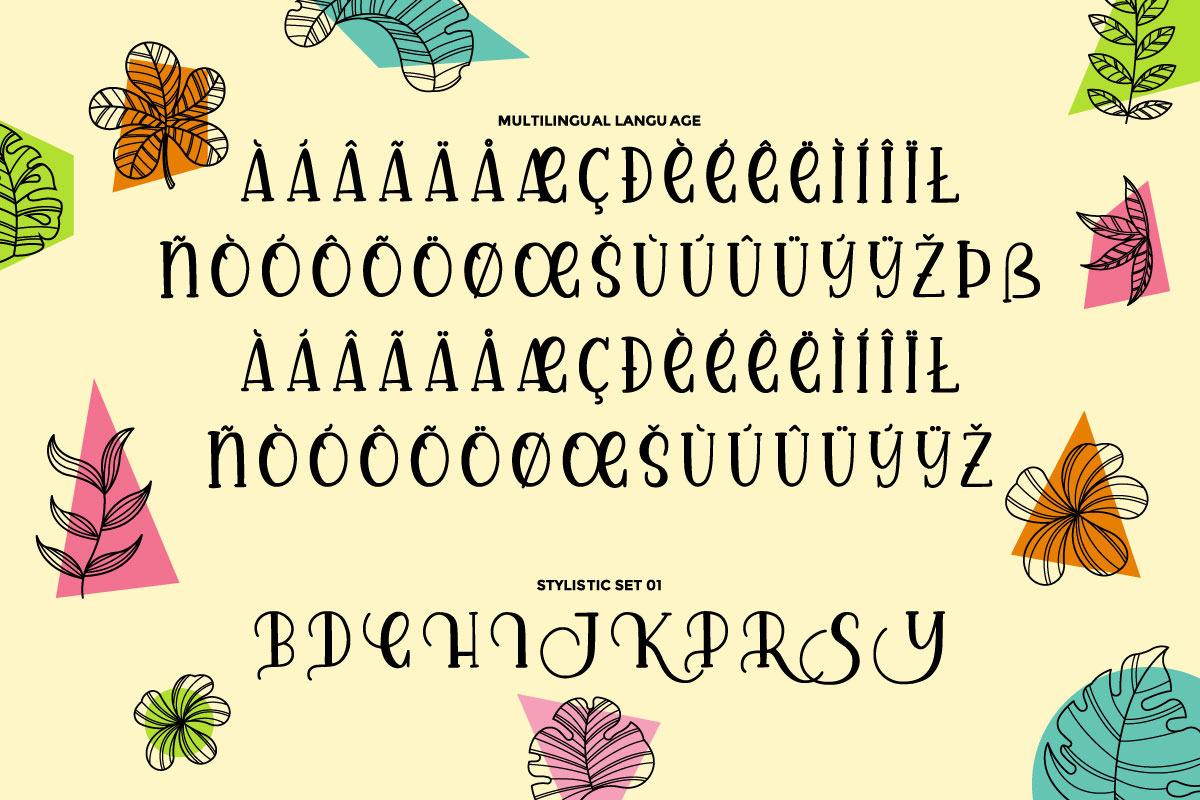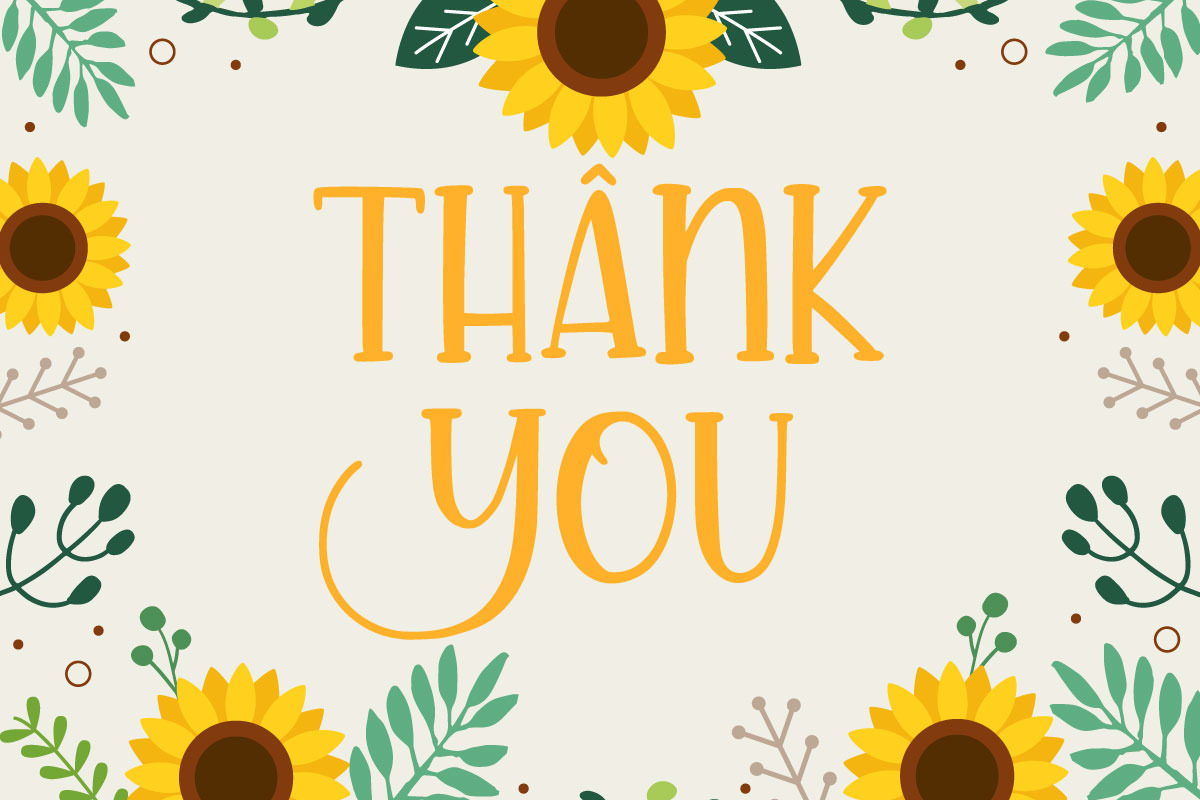
Rafael
Introducing Rafael
Rafael is the perfect font for all your fun designs. The main font file is equipped with ordinary characters. Everything is made with the funny brush. So you can be sure they will work well together! It is suitable for you to use in making t-shirt design, quote, label, packaging, logo type, or long writing. Because we have compiled kerning and matrices that are tailored to your needs.
Rafael features:
- Fully coded PUA for full access to all characters
- Opentype Features (Stylistic Alternates)